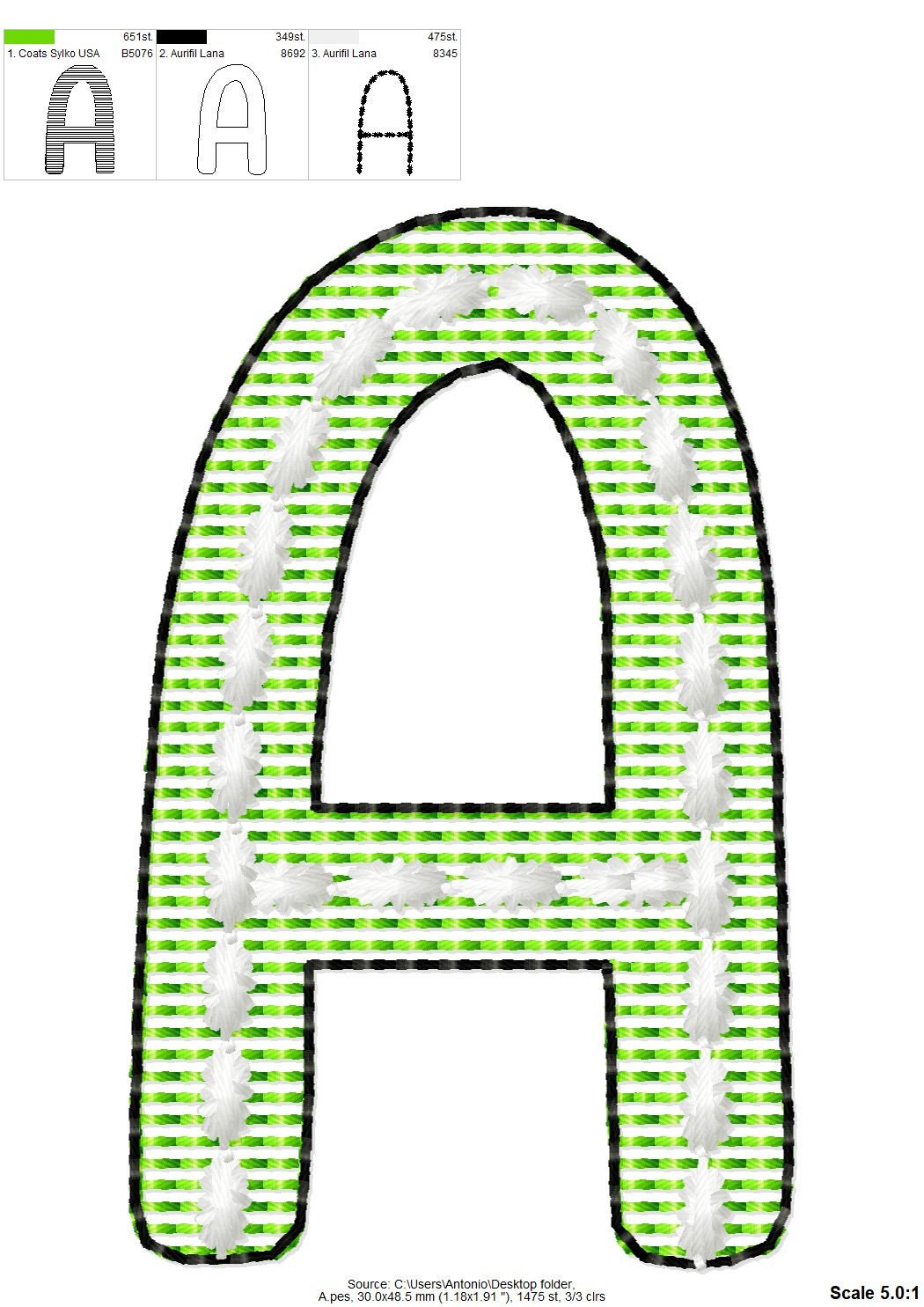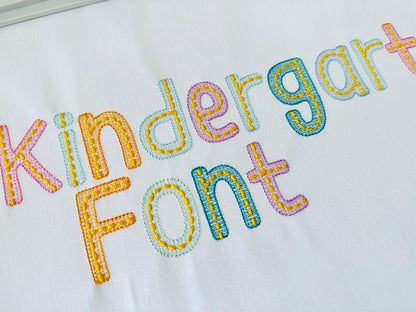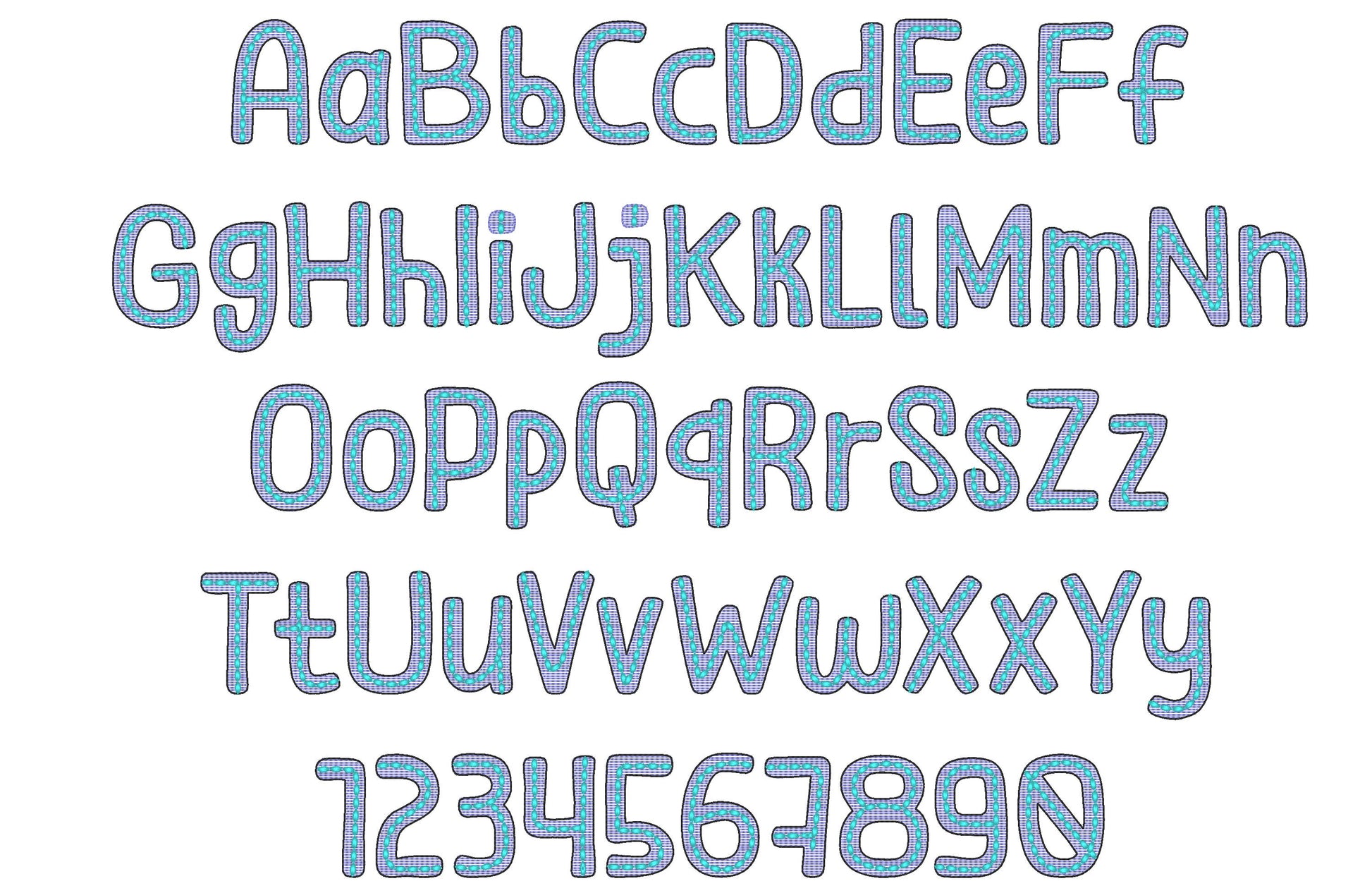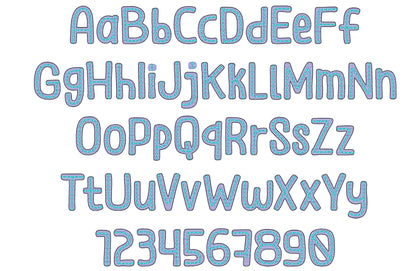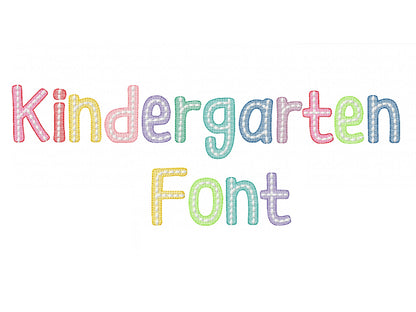
I am extremely pleased with the stitching I was able to do using this product. I needed a "bubble style alphabet" for machine embroidery where the letters were not too dense. I was thrilled to find this product on etsy. My photo shows that the stitching is not dense and yet, there is enough to give a splash of color for each bubble letter. The quality of the digitizing and stitch-out was good. There were a few jump stitches that occurred when the background color was being laid down for some of the letters, but it wasn't too hard to trim them off. I will definitely purchase from this sh
Very new to embroidery but one of my first projects were these folders with this font. Love them!
I love this font. I used it on the kindergartner’s backpack and the is precious.
Just the most precious font EVER!
Perfect stitch out! Fun - easy to customize colors. Thank you!
The embroidery file came out beautifully.
The sweetest font for a special surprise for my grandbabies. A lot of time to change out colorrs if you want to be creative but so worth it.
I LOVE LOVE LOVE this font
Stitched out great. Will be back for more
Originale cette police de caractère à du caractère!
Such a cute font! Stitched out perfect!
Sehr schöne Schrift, lässt sich prima sticken.
Parfait ! très jolie broderie facile .. gaie, lumineuse, pleine de fantaisie
Great font thank used on my grandsons back to school shirts
Adorable font, stitches out beautifully!
Really cute font. Stitched out well
It’s very nice pattern font for embroidery.
This was the perfect font for the mesh bag organizers. I used it with and without the center stitch and it worked great both ways.
Super cute! Stitches out great!
Stitched great!!! Would Recommend to others
Stitched out wonderful. Fun font for my projects!
Fun font to use with no problems.
Stitched out exactly as expected!
this stitched so perfectly! the help video was amazing
Stitched out beautifully, happy customer!
It is sp cute on baby bibs
This font turned out so cute on a file folder!!!!
Great font! Love all the fonts I have purchased from this seller.
Stitched out beautifully, thank you!
Weer een mooi lettertype voor de kinderkleding. Dank u Anna
This was a great stitch out!
Sehr schöne Schrift. Sehr schönes Stickbild, keine Probleme
Such a cute font! I have not stitched it out yet, but I'm sure it will stitch our nicely.